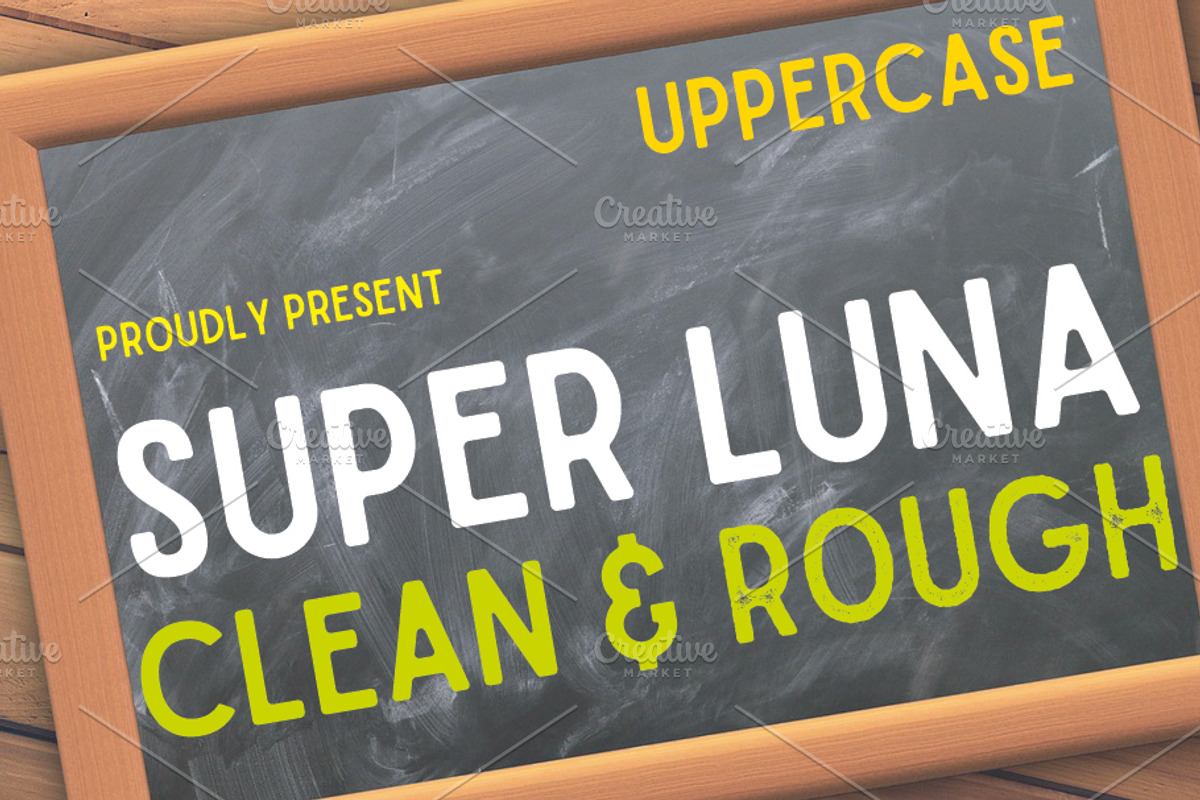
Elevate your design game with Super Luna Font Free Download — a bold and versatile typeface that comes in both Clean and Rough versions, giving you the power to adapt your style across multiple moods. Whether you're going for polished professionalism or raw, edgy character, Super Luna delivers with clarity and impact.
Perfect for logos, posters, headlines, branding materials, packaging, and social media graphics, this font packs a punch no matter how you use it. It includes uppercase and lowercase letters, numerals, punctuation, and multilingual support — making it ideal for designers who want options without compromise.